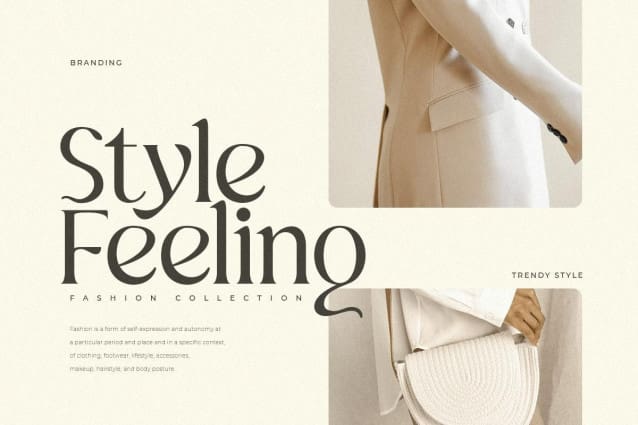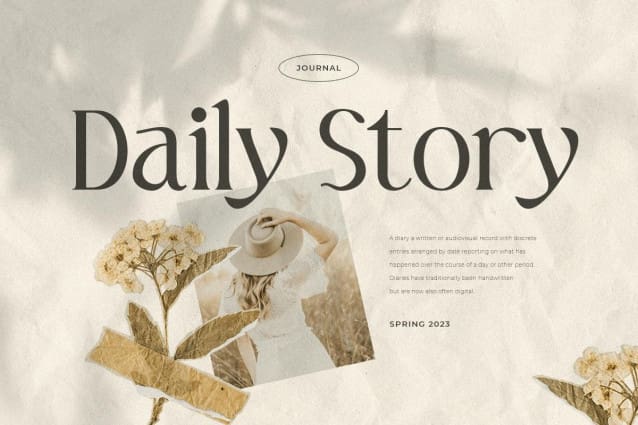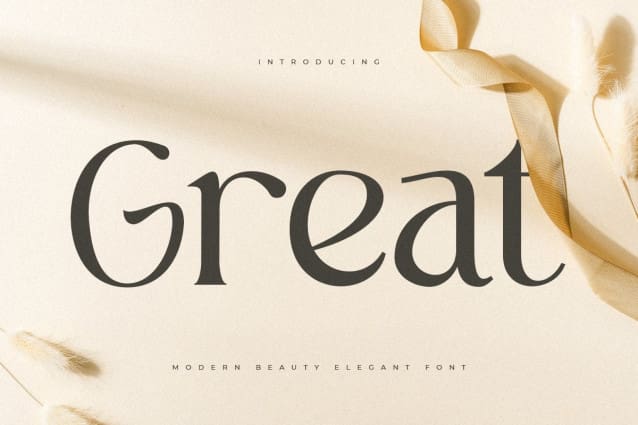
Great Font
Great Font, a stylish and elegant display font that we created especially for stylish and fashion branding needs, with a unique shape will be ready to add value to your brand. It’s so nice to reach out to a designer or product owner who needs solutions to make their design look more sleek and modern. And especially for this font, we have prepared unique characters to help you create unlimited variations for your creative needs.